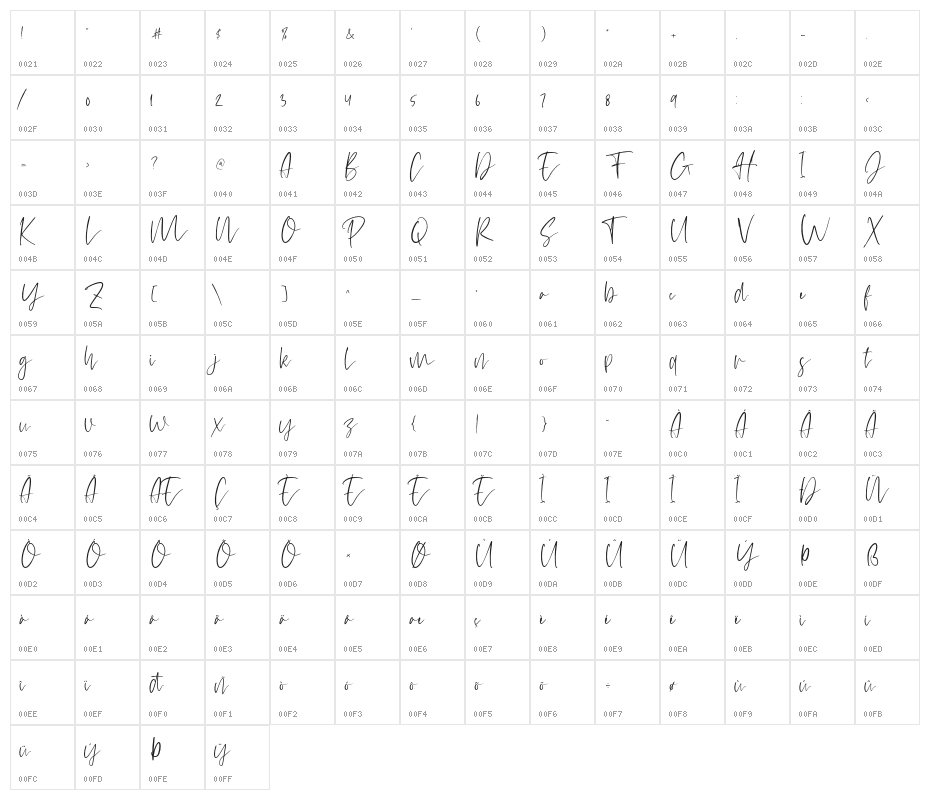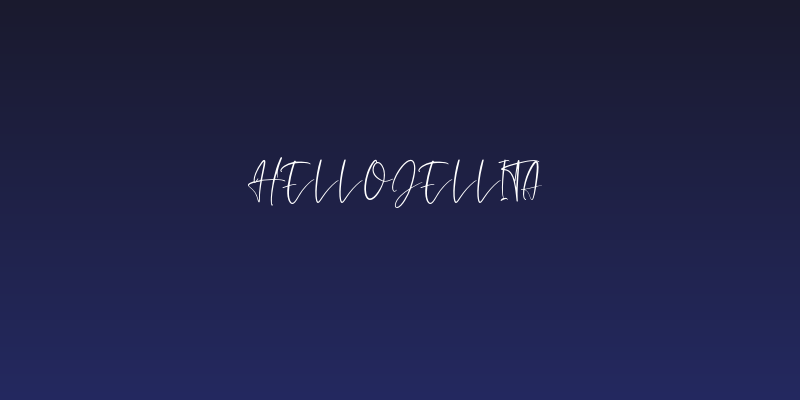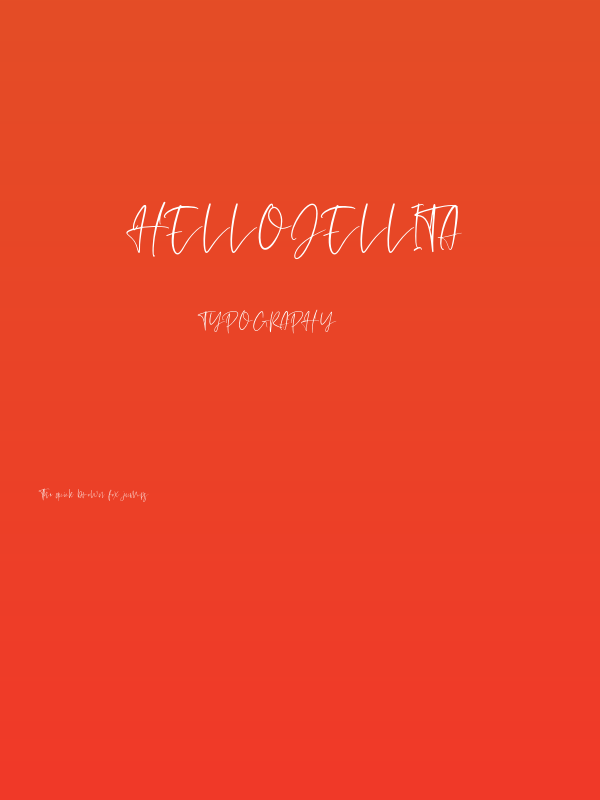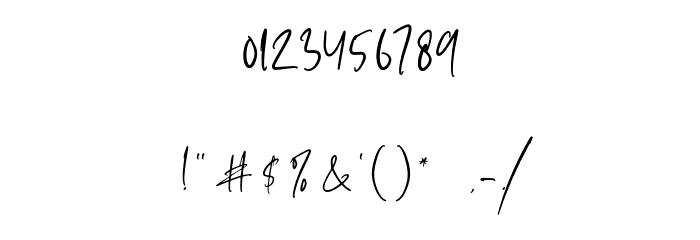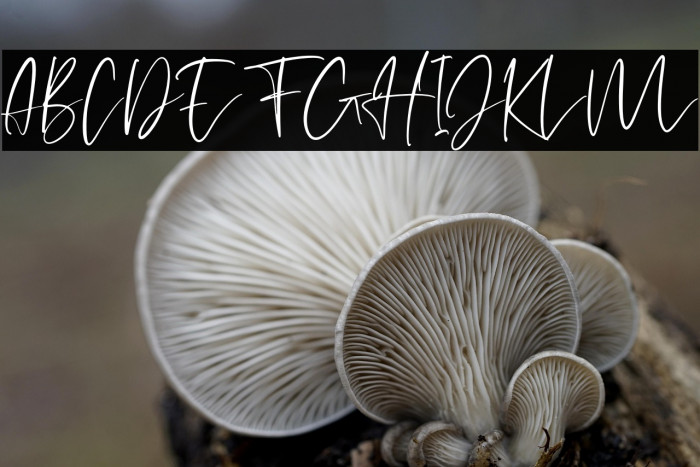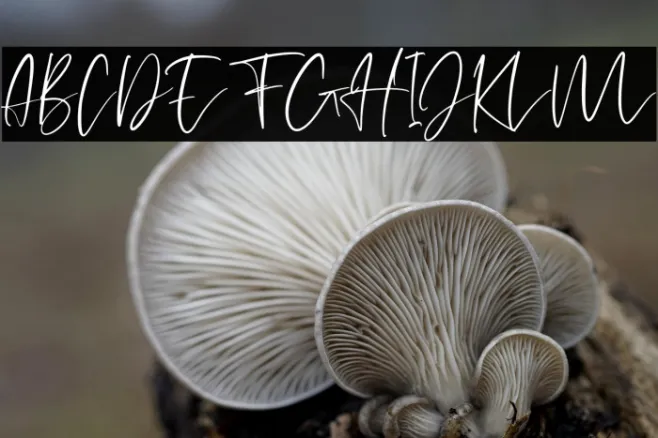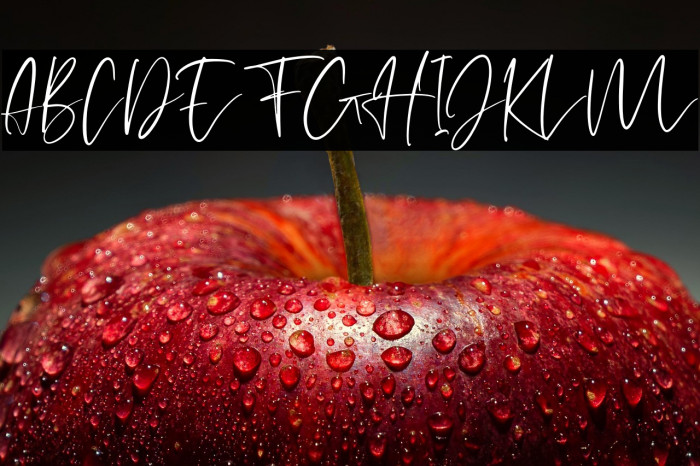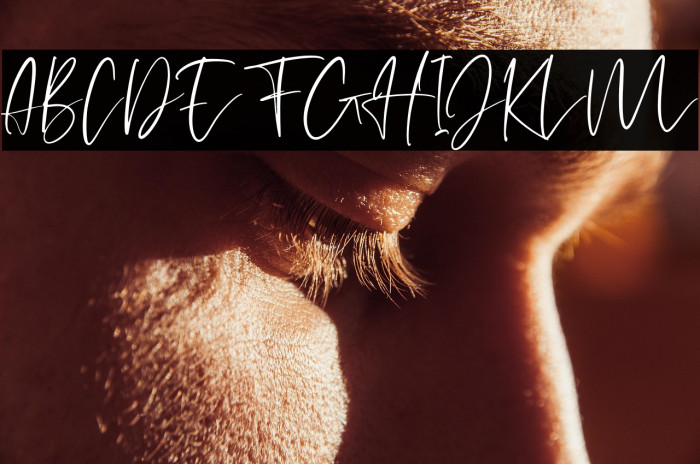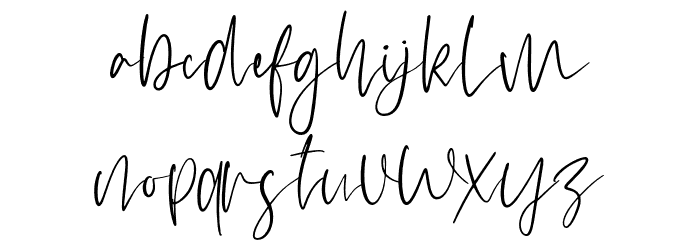
helloJellita Font
This font features a lively and expressive handwritten style, characterized by its fluid and dynamic strokes. The letters are elegantly connected, giving it a natural and personal touch. The uppercase letters are bold and prominent, while the lowercase letters maintain a consistent flow with slightly varied heights, adding to its charm. The numerals and special characters are crafted with the same attention to detail, ensuring a cohesive appearance. This font exudes a sense of creativity and spontaneity, making it ideal for projects that require a personal and artistic flair.
| Proposed Projects | Ideal for wedding invitations, greeting cards, personal branding, and artistic projects. |